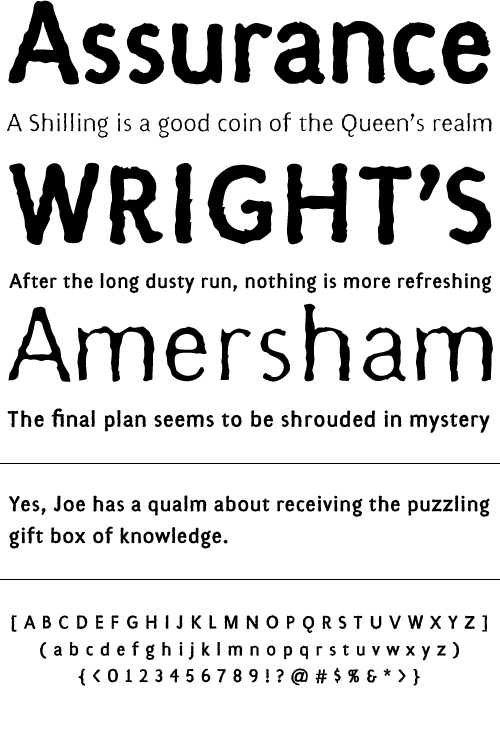
Gothico Antiqua
Gothico Antiqua is the result of grunging up one of my early sans-serif type designs. It strangely works very well and looks authentic at small to medium settings.